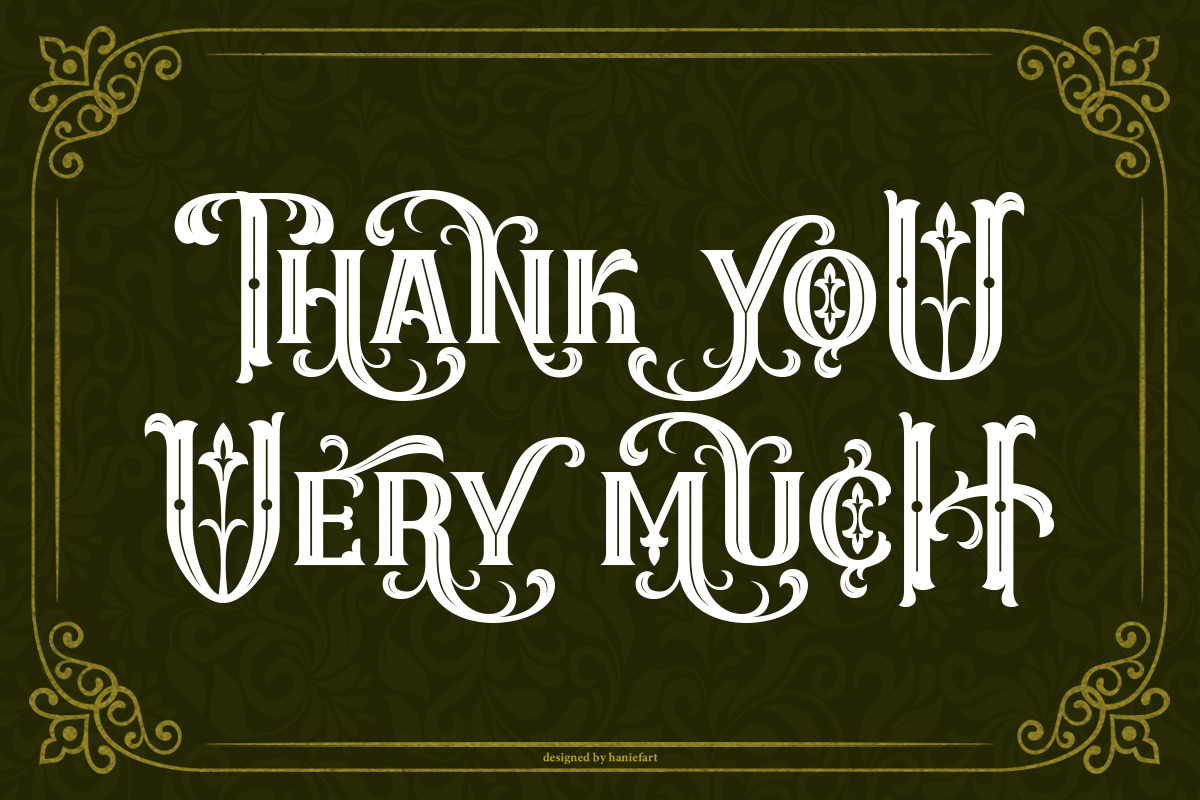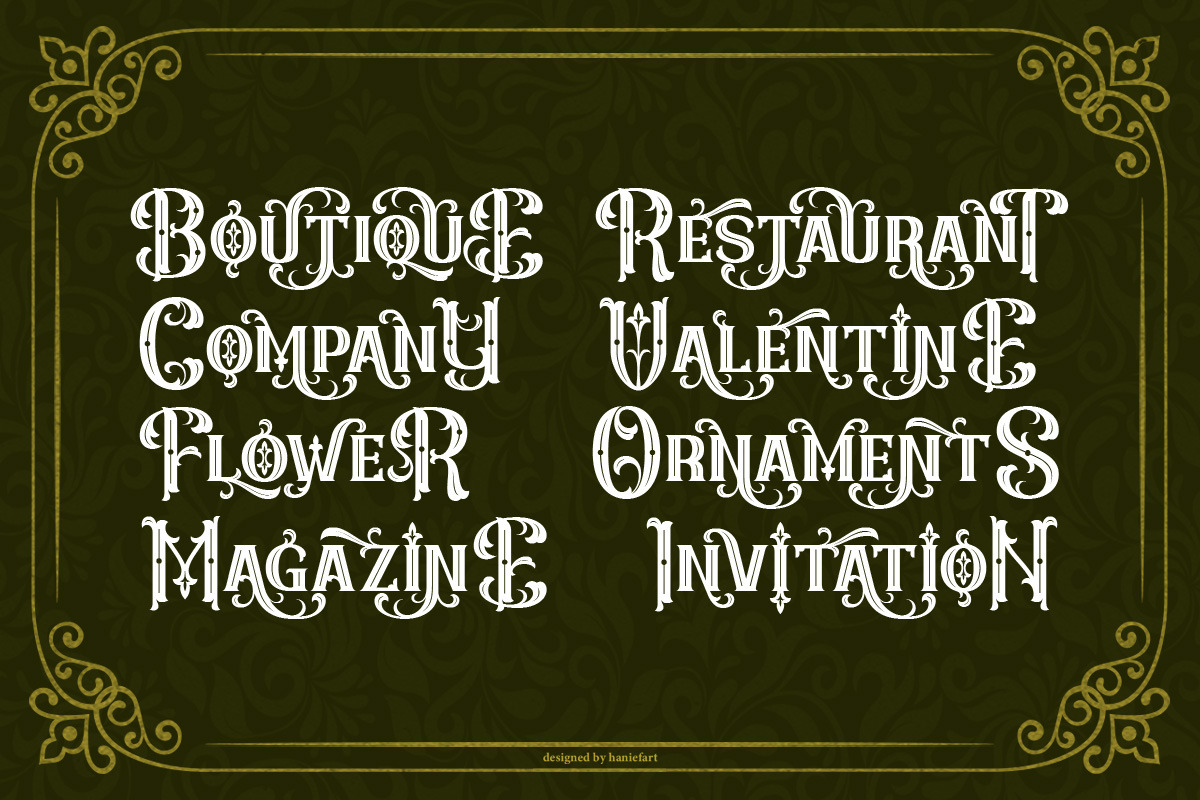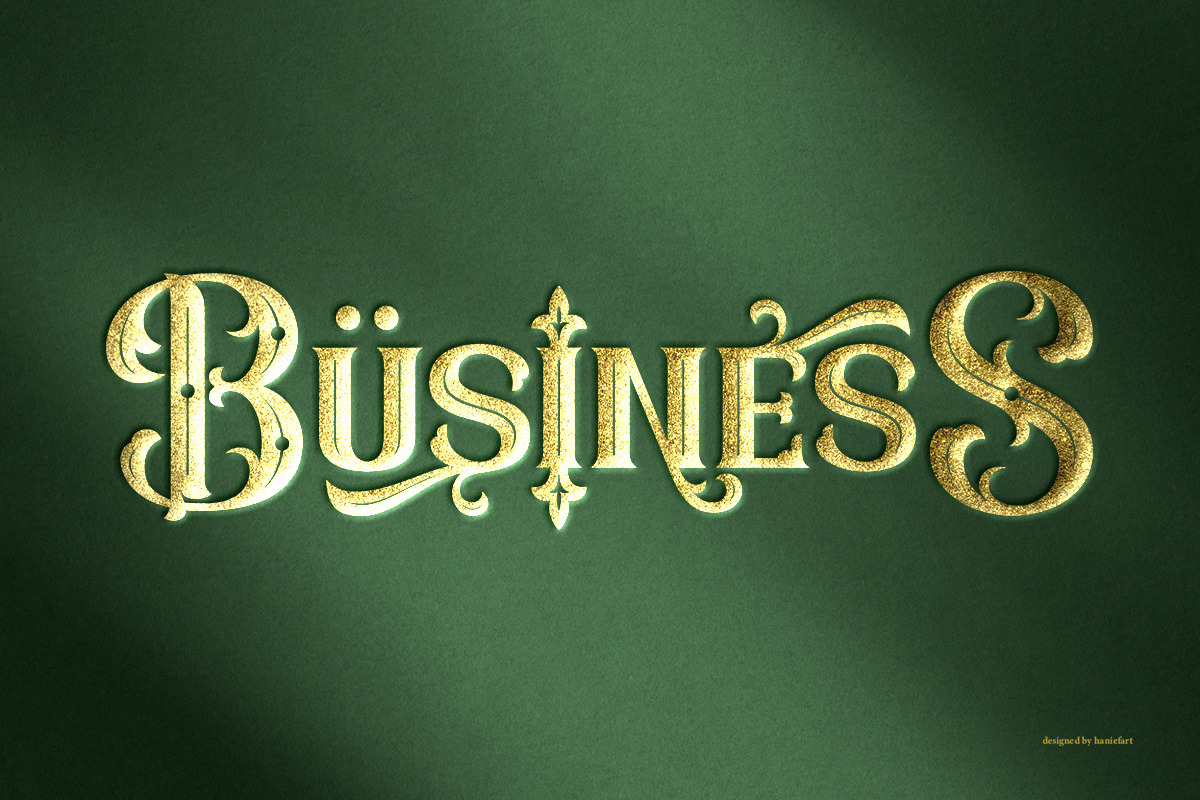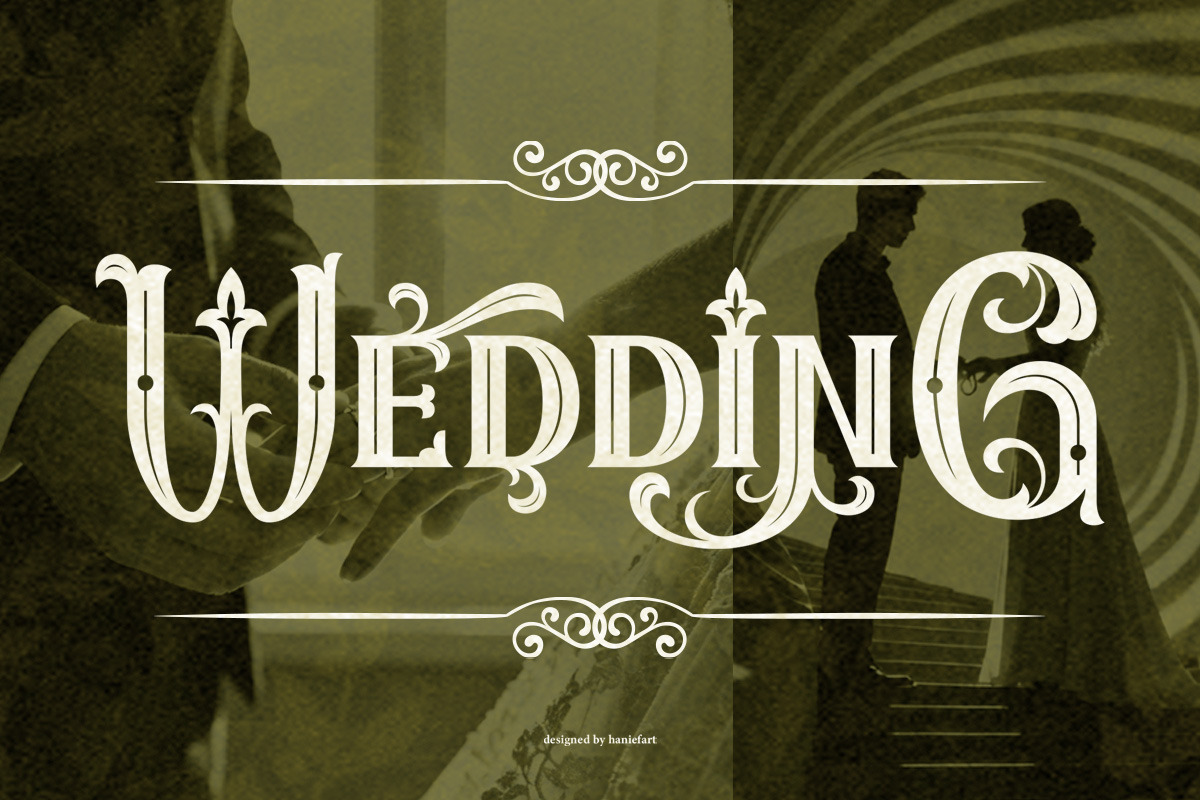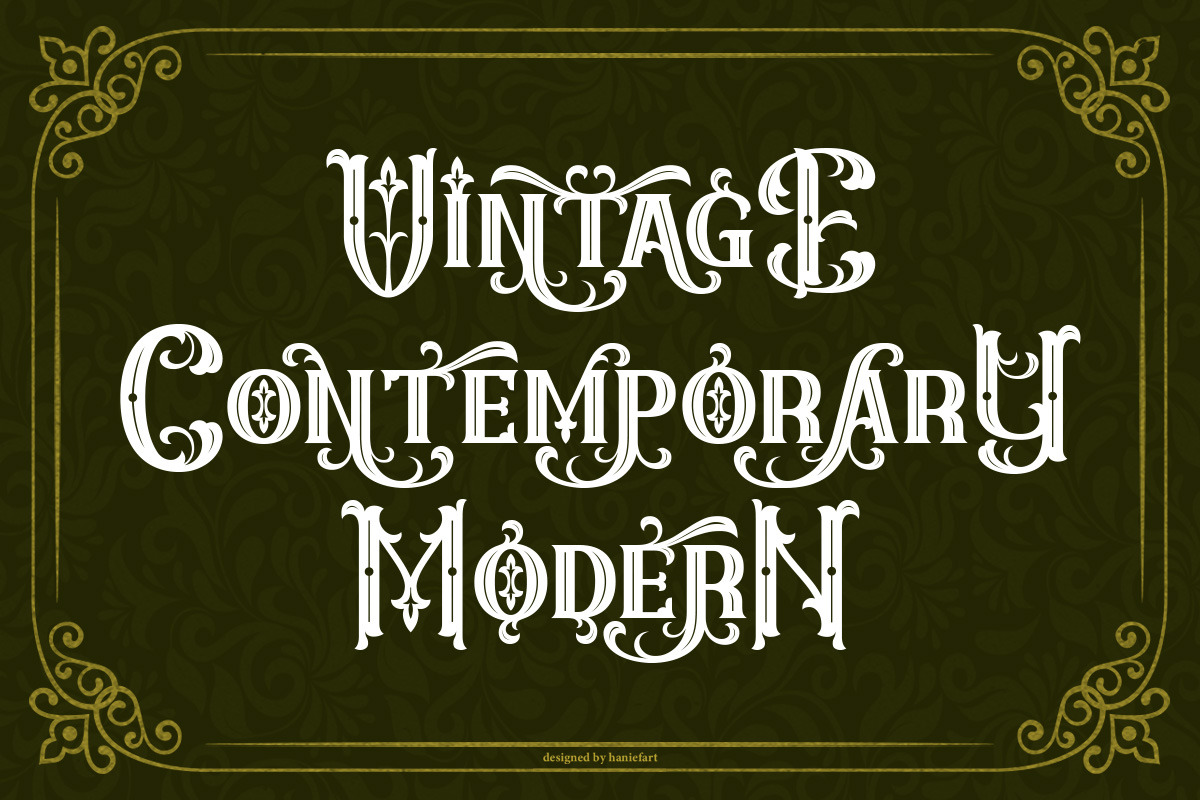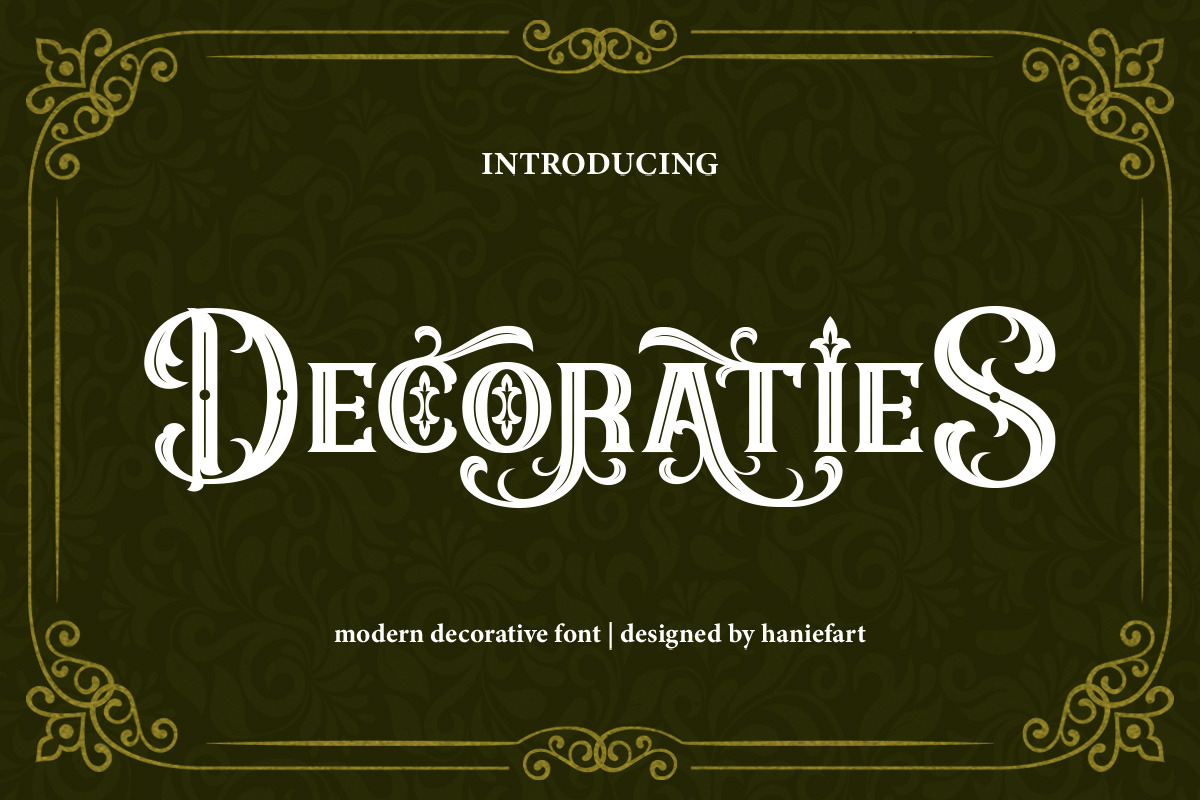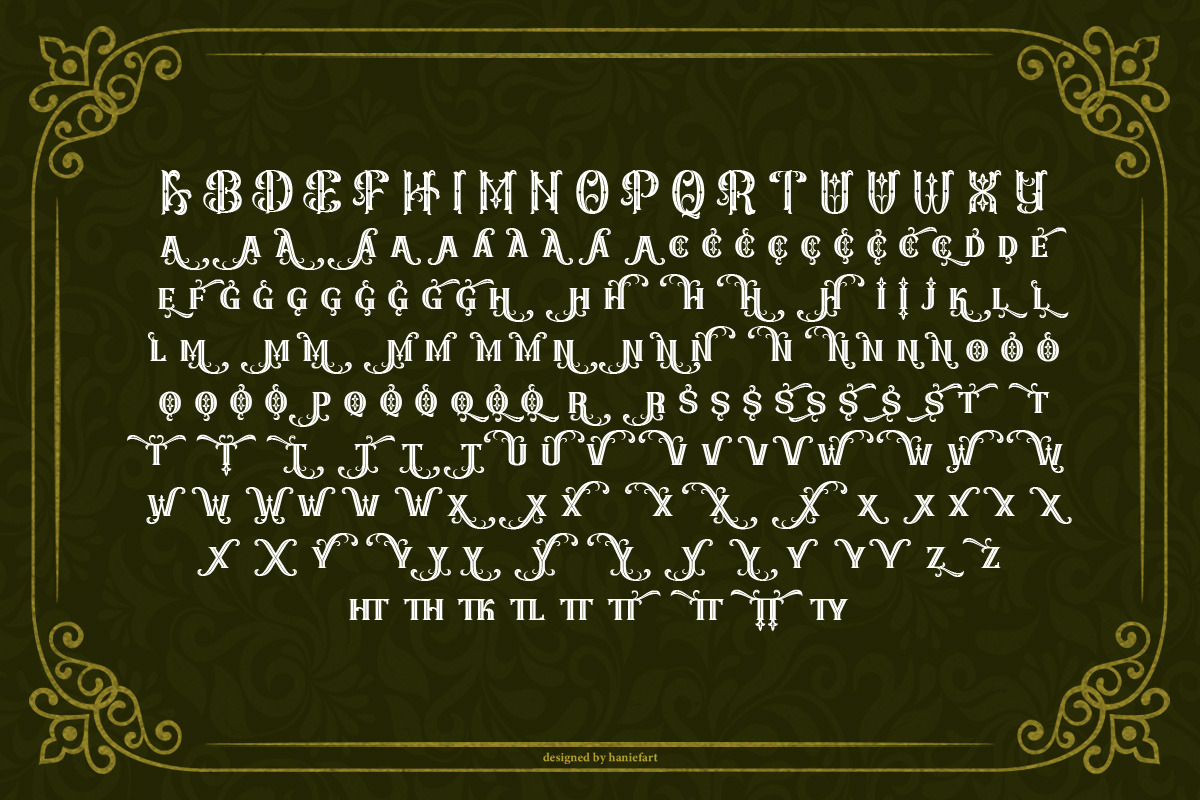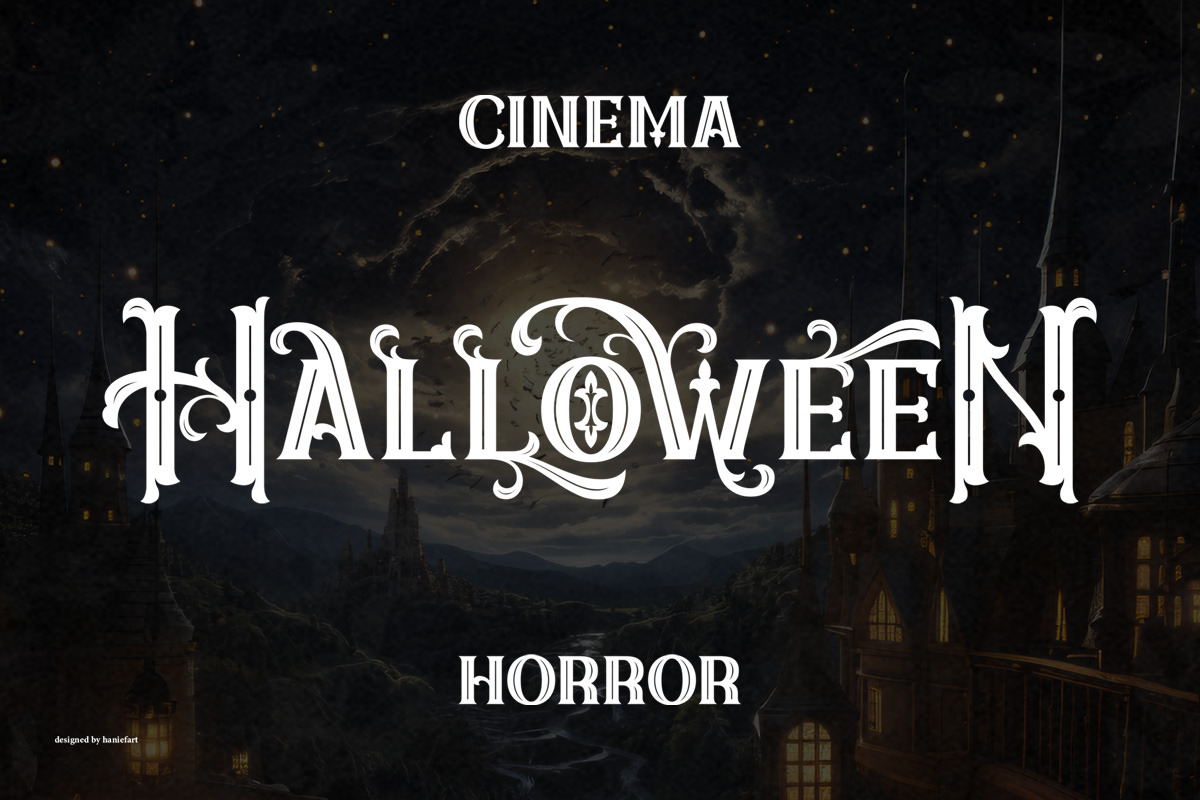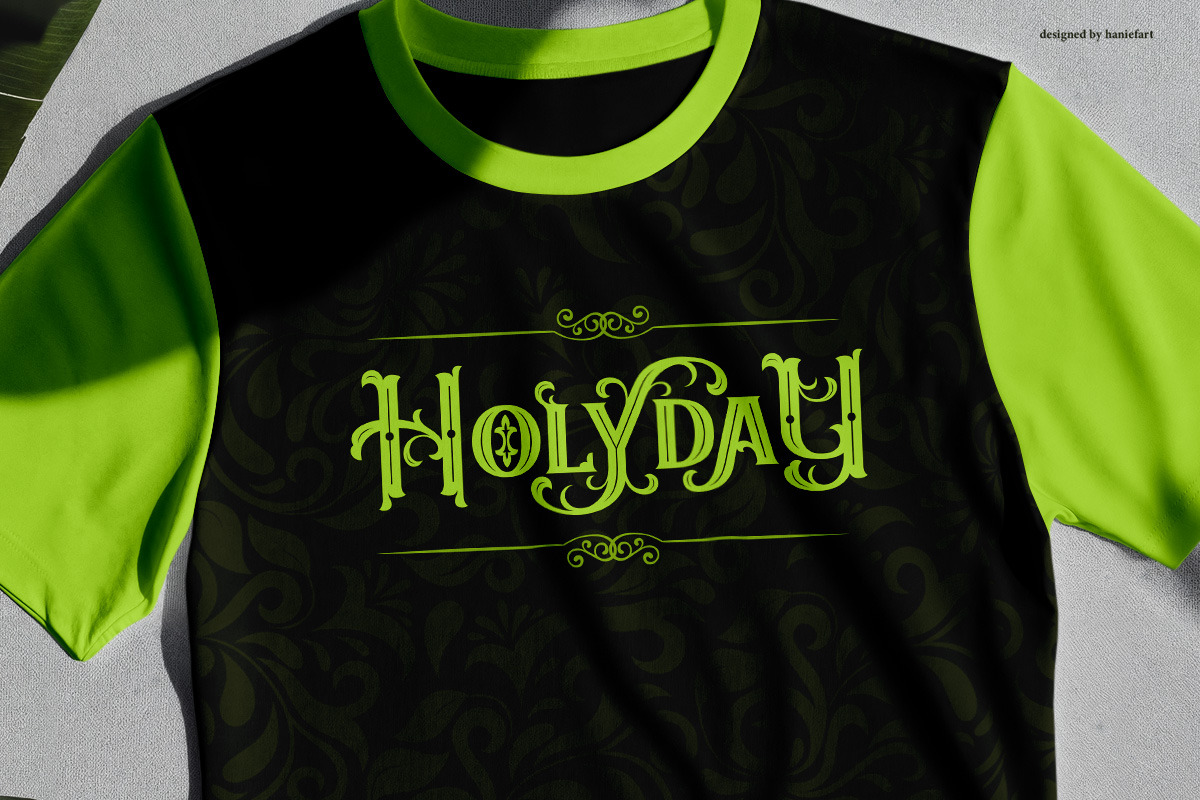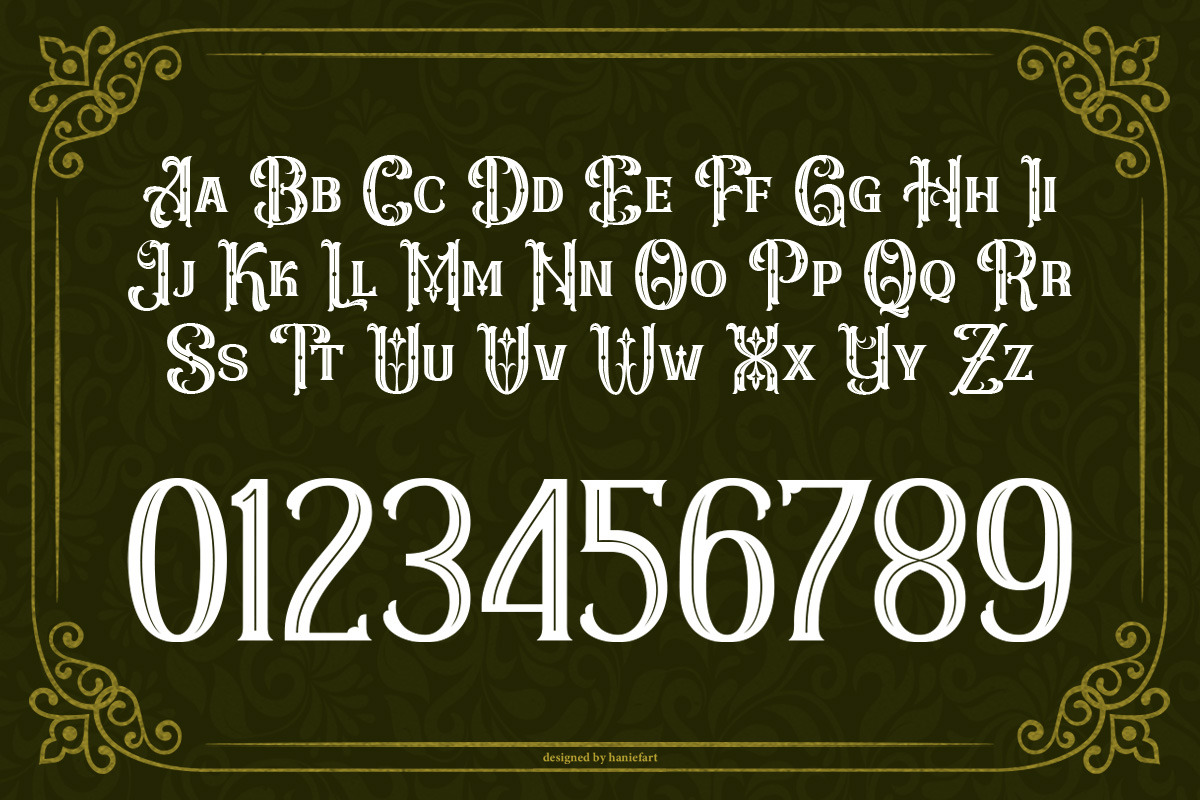
Decoraties - Modern Decorative Font
Decoraties is a modern decorative font that effortlessly brings your designs to life. Serving as an artistic harmony between dynamic serifs and fresh touches, this contemporary typeface captivates with its fresh, modern appeal. Highly adaptable, this font is perfect for branding and company logos, as well as adorning movie titles, beverage labels, or magazine headlines. This font adds a charming charm to wedding invitations while also lending a casual, cool feel to t-shirts and much more. With Decoraties, you're not just using a font, you're enhancing your creative output with the perfect blend of style and elegance.